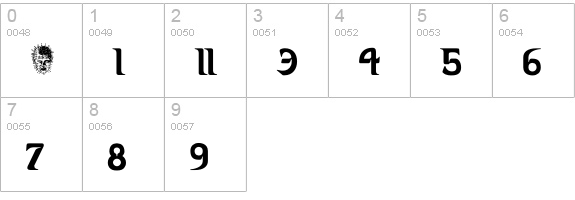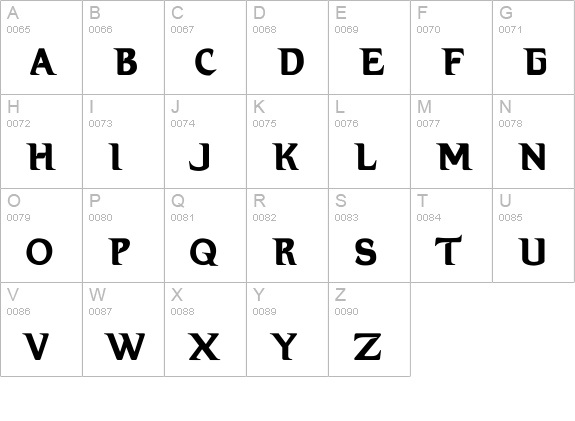
Hellbound Font Details
Introducing Hellbound, a captivating and dynamic font that is sure to make a bold statement. With its edgy and rebellious style, Hellbound is perfect for those who want to stand out and leave a lasting impression. This font brings a unique blend of modernity and intensity, making it ideal for a wide range of design projects. Whether you're creating eye-catching headlines, designing impactful logos, or crafting striking posters, Hellbound will effortlessly inject energy and attitude into your work. But what sets Hellbound apart is not just its striking appearance, but also the fact that it is completely free. That's right, this incredible font can be freely downloaded at FontsMarket.com, allowing you to unleash your creativity without any limitations or constraints. Not only does Hellbound offer exceptional visual appeal, but it also boasts a high level of legibility. Each character is meticulously crafted, ensuring that every letter, number, and symbol is clear and easily readable. This makes Hellbound a versatile font that can be utilized across a variety of mediums, from print to digital. So, whether you're a professional designer looking to add a touch of rebelliousness to your next project or an aspiring artist wanting to make a statement, Hellbound is the perfect font for you. Download it for free at FontsMarket.com and let your creativity run wild with this captivating and powerful typeface.